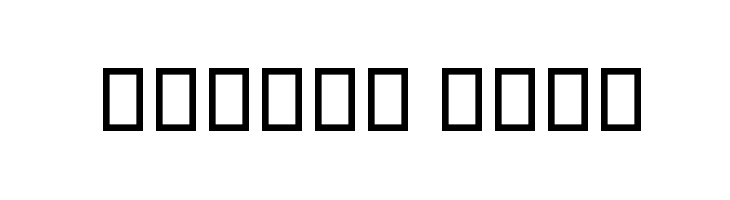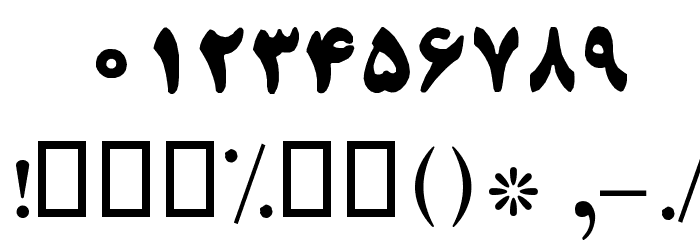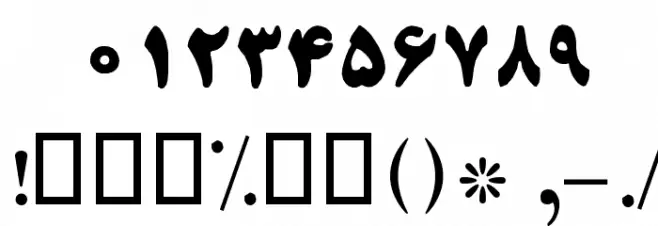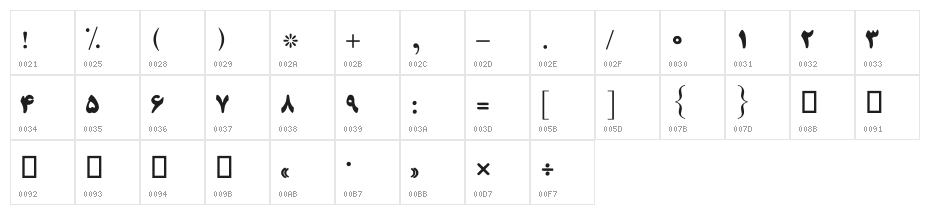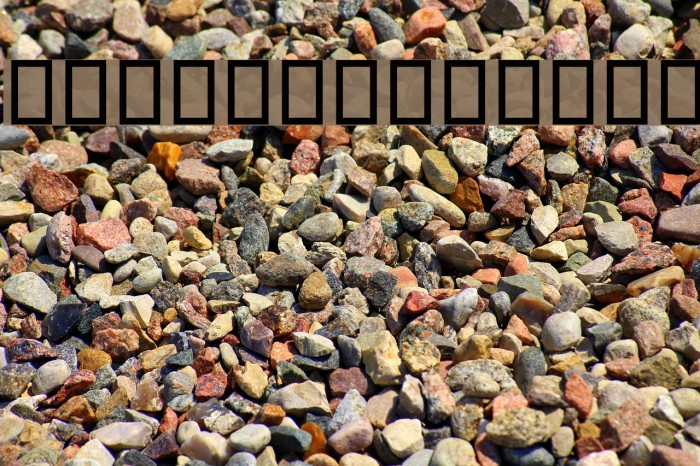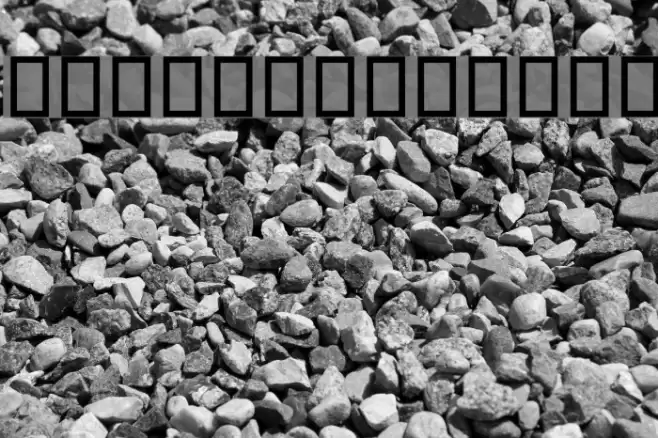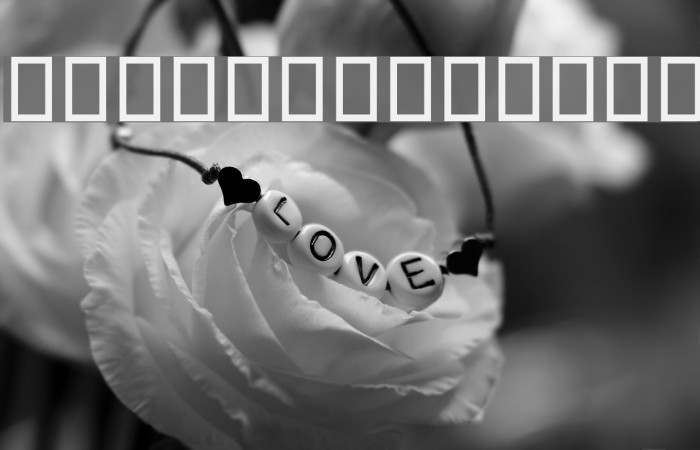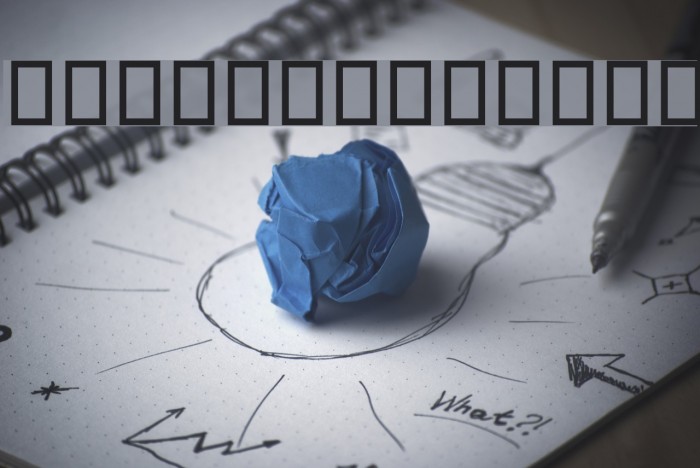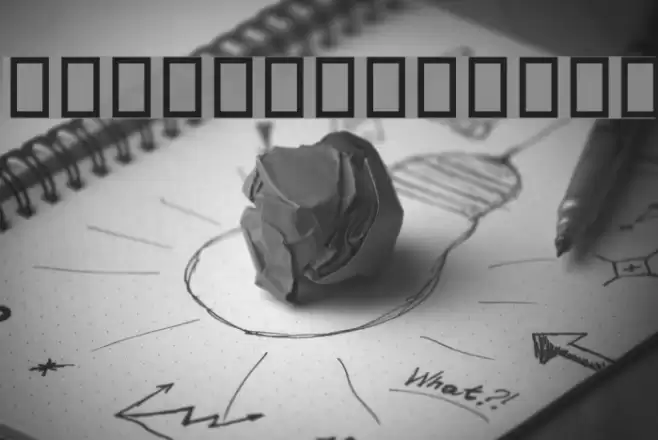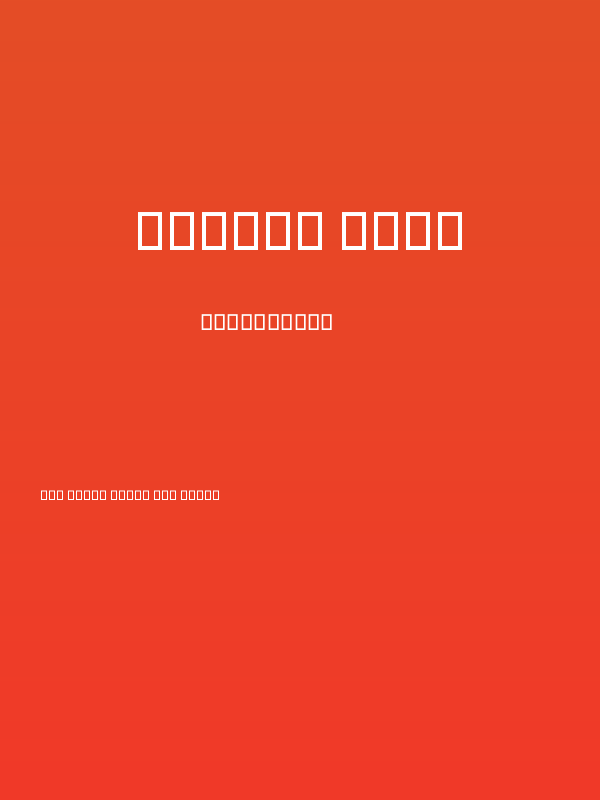
Ketaab Bold Font
Ketaab Bold Description
This font features a bold and striking design with a strong presence. The characters are crafted with a modern aesthetic, showcasing a unique blend of traditional and contemporary styles. The numerals are particularly distinctive, with a flowing, almost calligraphic quality that sets them apart. The special characters maintain the boldness of the font, ensuring consistency across all elements. This font is versatile, suitable for a variety of applications where a bold statement is needed.
| Proposed Projects | Ideal for branding, headlines, posters, and any project requiring a strong visual impact. |